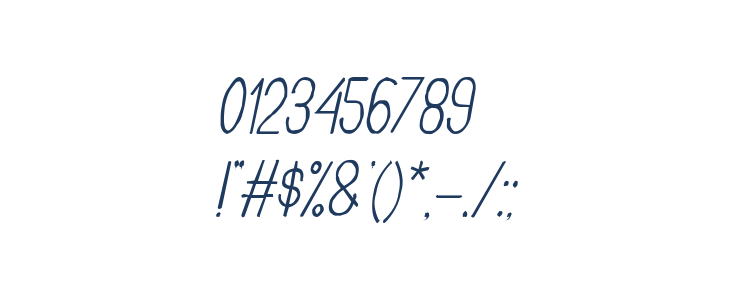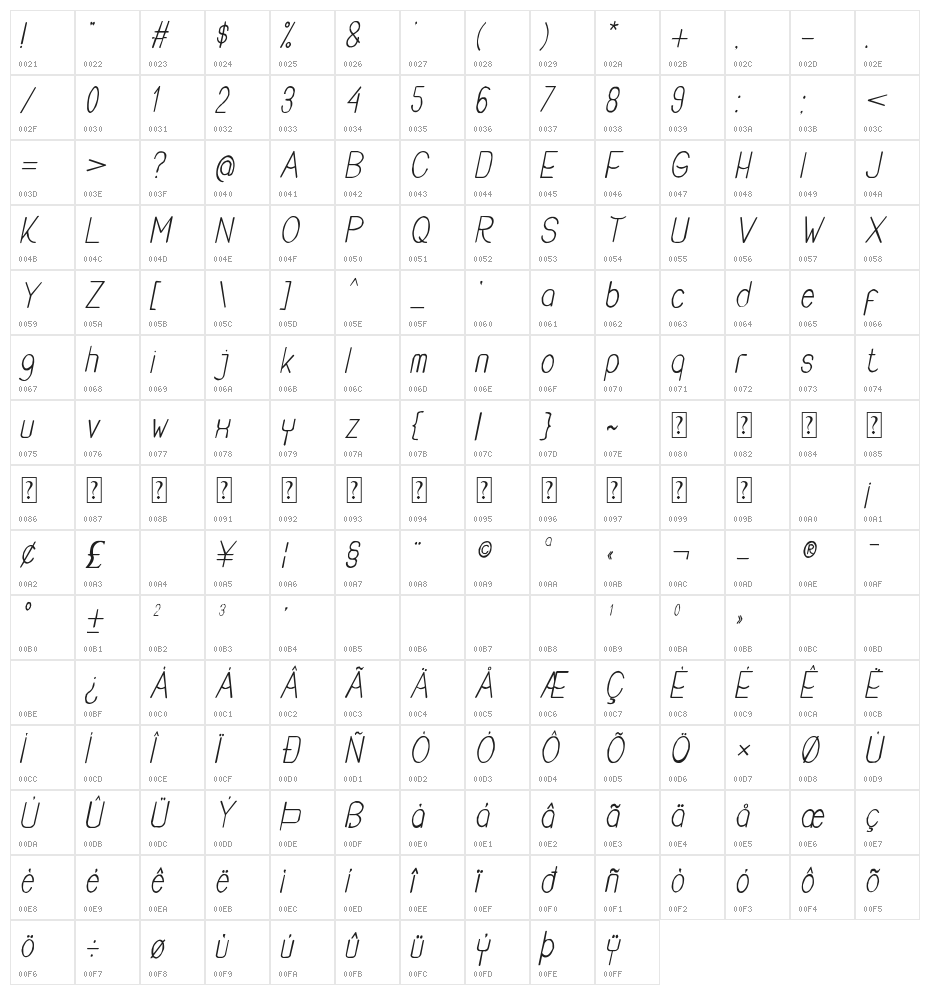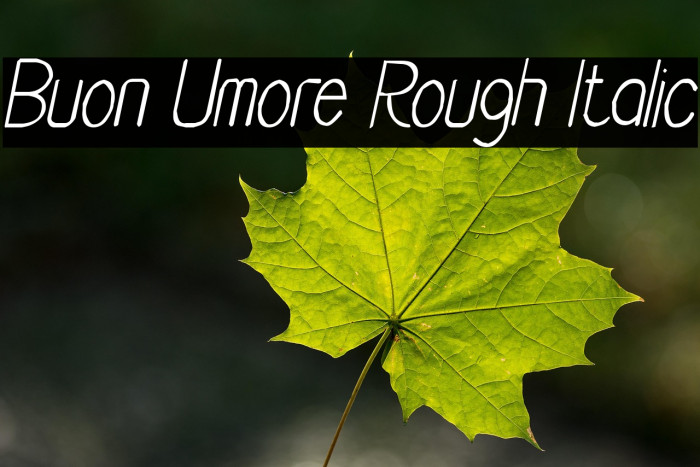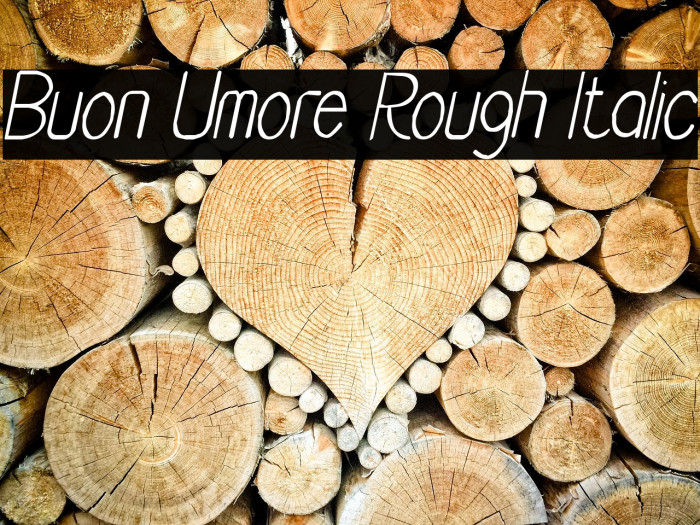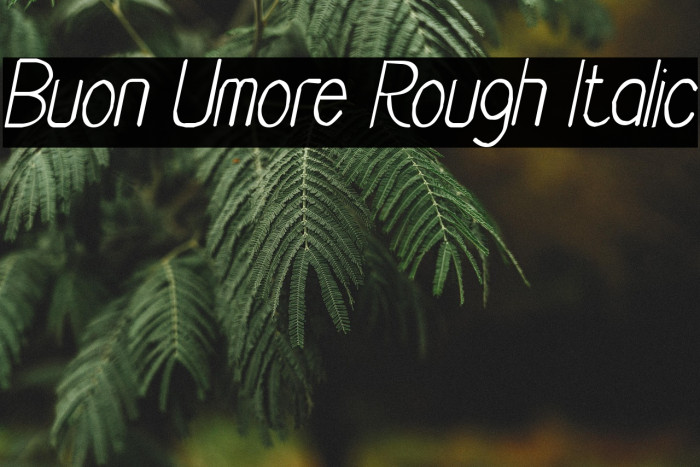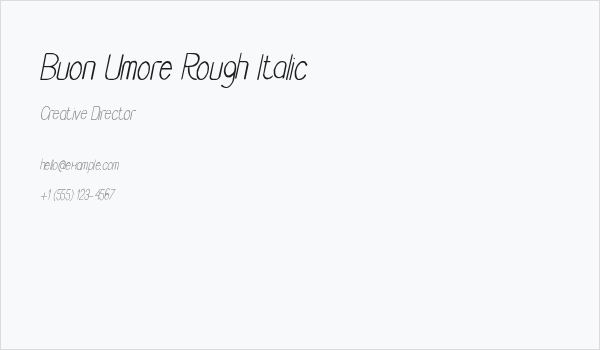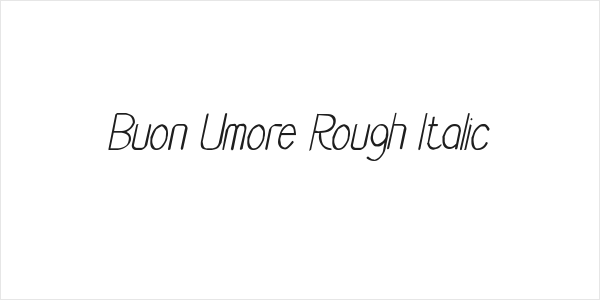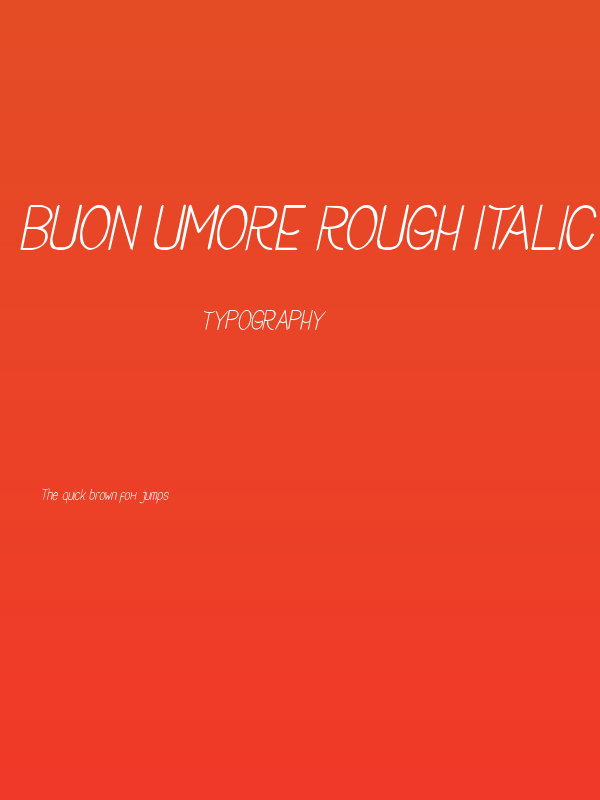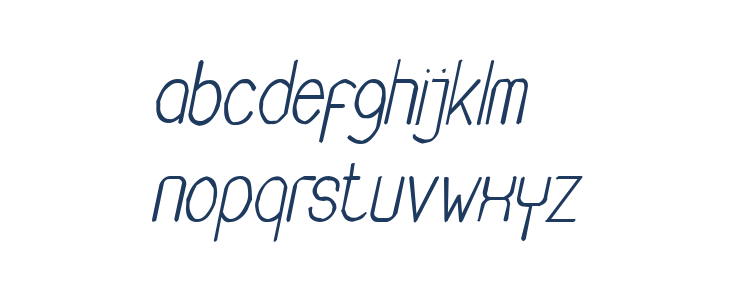
Buon Umore Rough Italic Font
Buon Umore Rough Italic Description
This font features a playful and dynamic style with a rough, hand-drawn appearance. The letters are italicized, giving a sense of movement and energy. The strokes are uneven, adding to the casual and informal feel. The uppercase letters are tall and slightly narrow, while the lowercase letters maintain a consistent height, creating a harmonious balance. The numerals are clear and distinct, matching the overall aesthetic. Special characters are included, maintaining the same rough and energetic style. This font is ideal for projects that require a lively and informal touch.